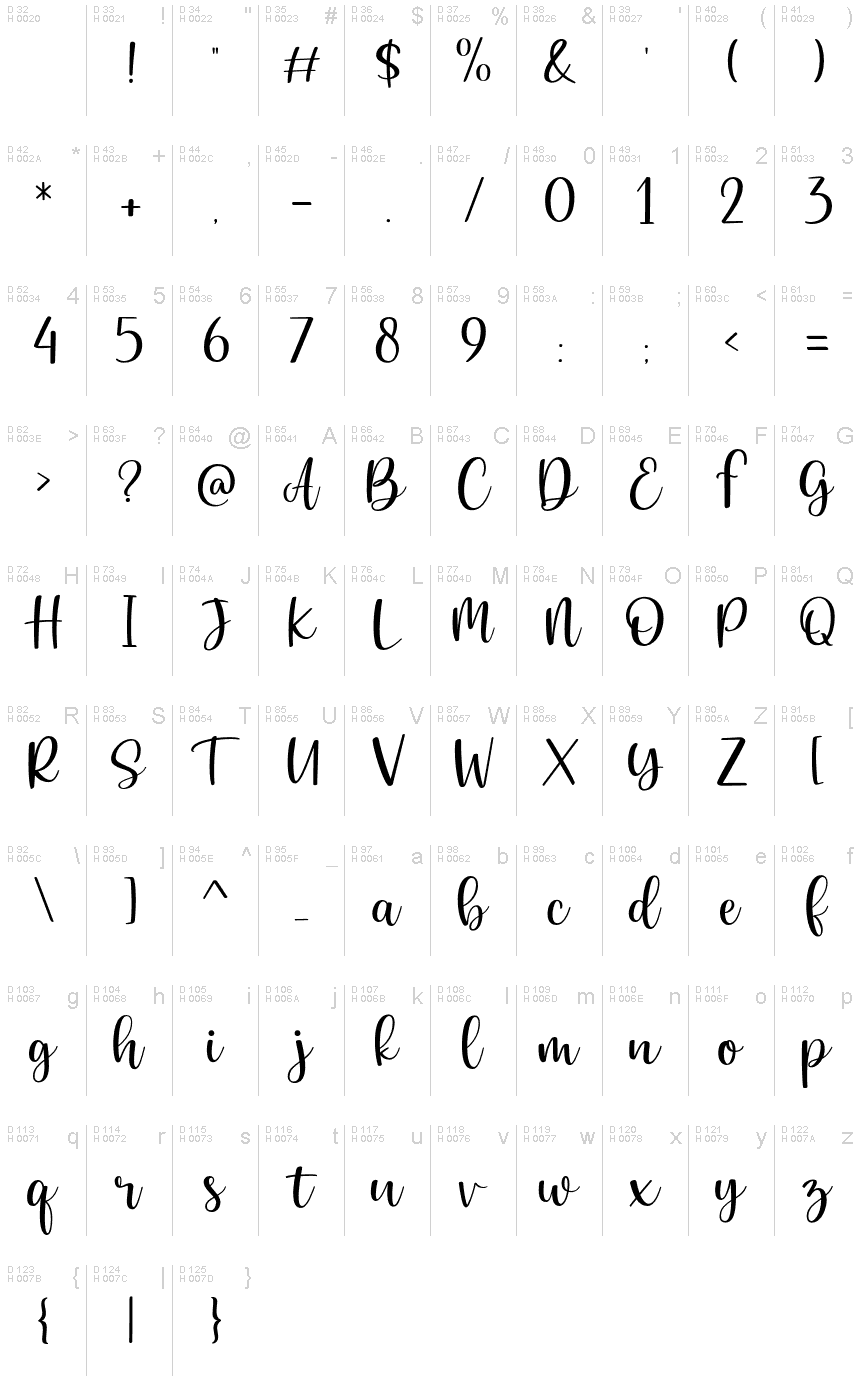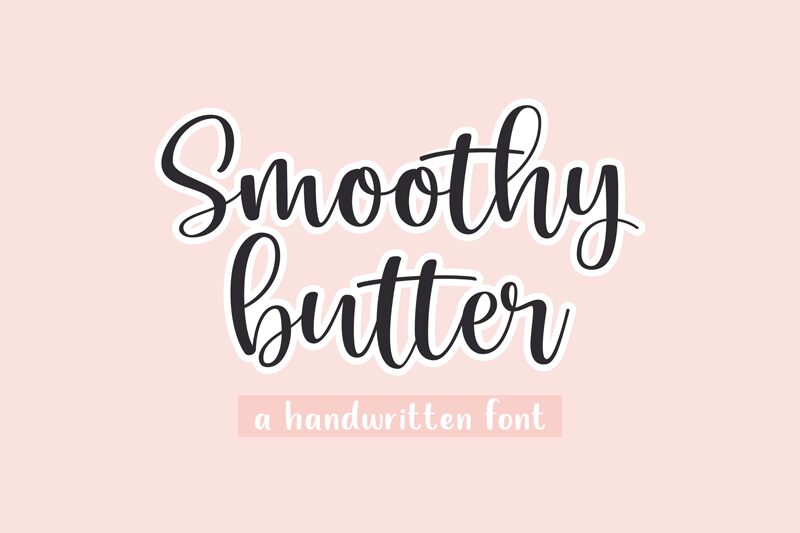
Smoothy Butter, designed by Letterflow, is a stunning calligraphy font that will add a touch of elegance to any project. Its semi-light weight creates a delicate and refined feel, making it perfect for wedding invitations, greeting cards, and other celebratory designs. The smooth curves and gentle strokes of this font create an organic flow that is both calming and visually appealing. With its sophisticated yet playful style, Smoothy Butter would also be ideal for branding projects such as logos or packaging design. Let the beauty of Smoothy Butter elevate your next project to new heights.